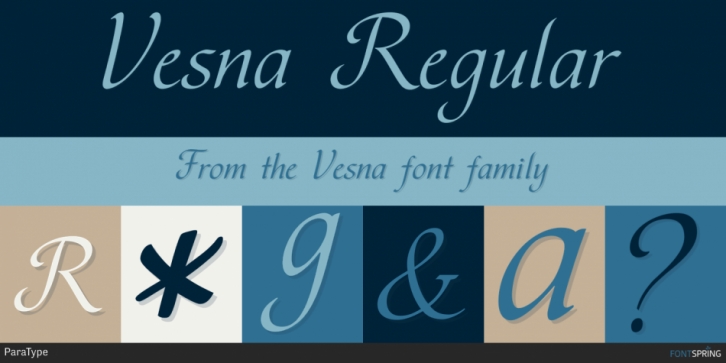
Designed by Natalia Vasilyeva, Vesna is a script font published by ParaType.
PT Vesnaâ„¢ was designed by Natalia Vasilyeva in 2000. It is licensed by ParaType.
Vesna is an original calligraphic script for use in advertising and display typography.